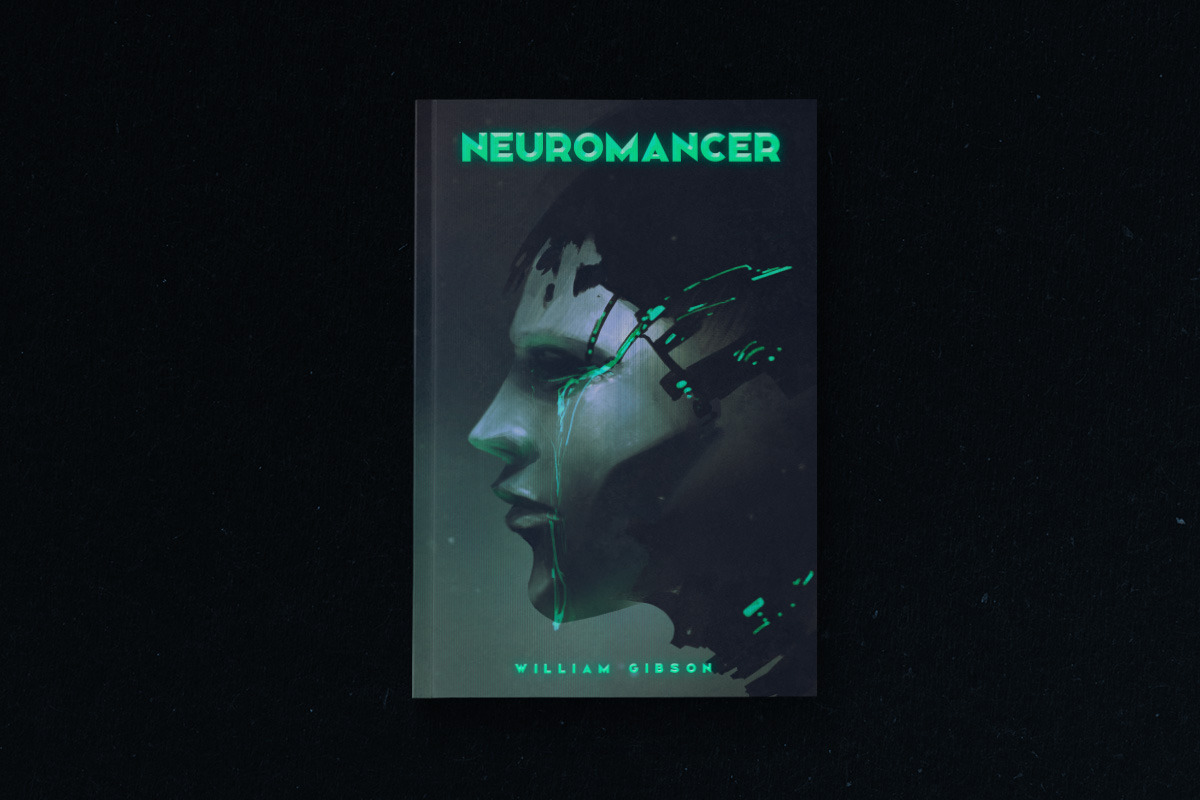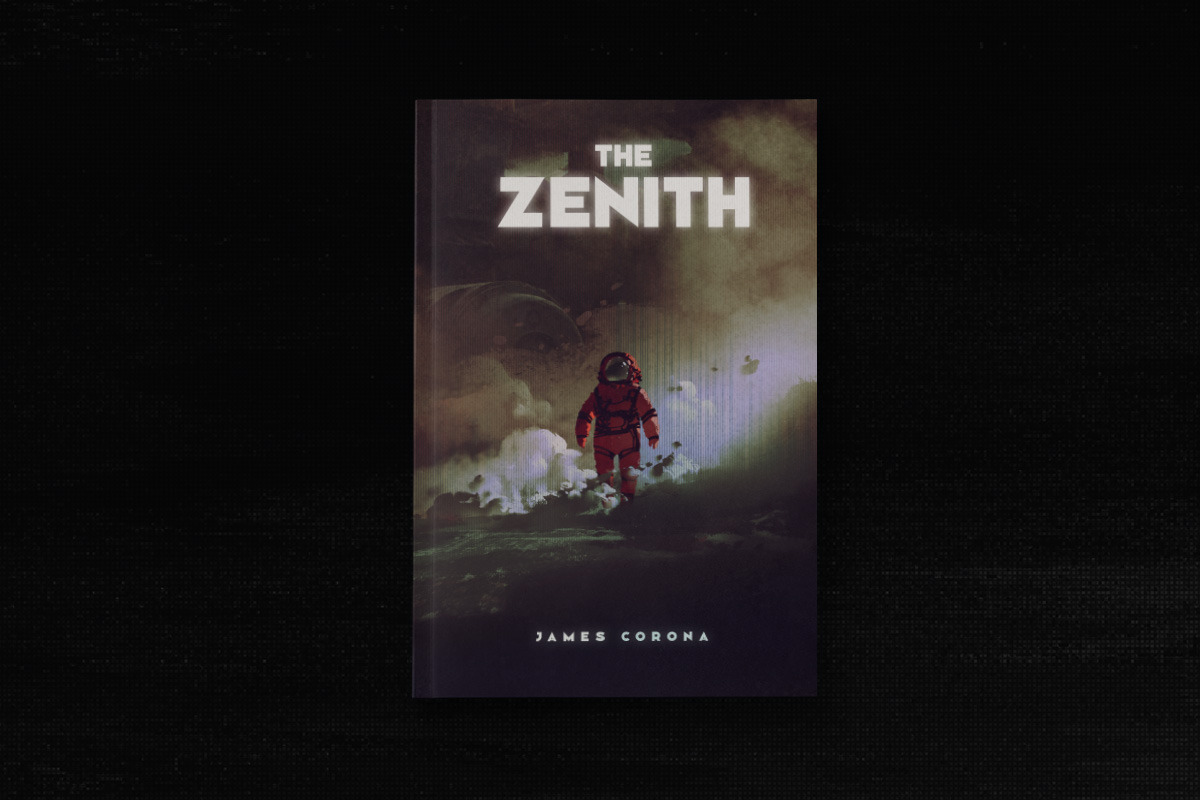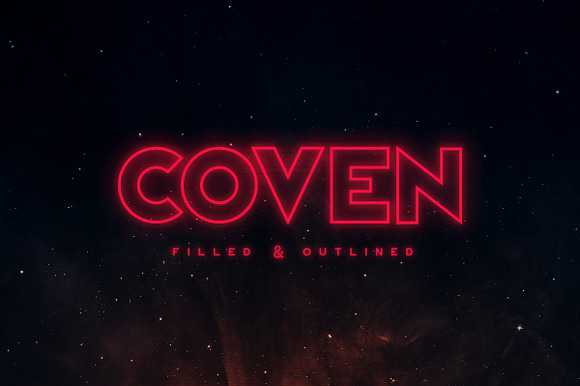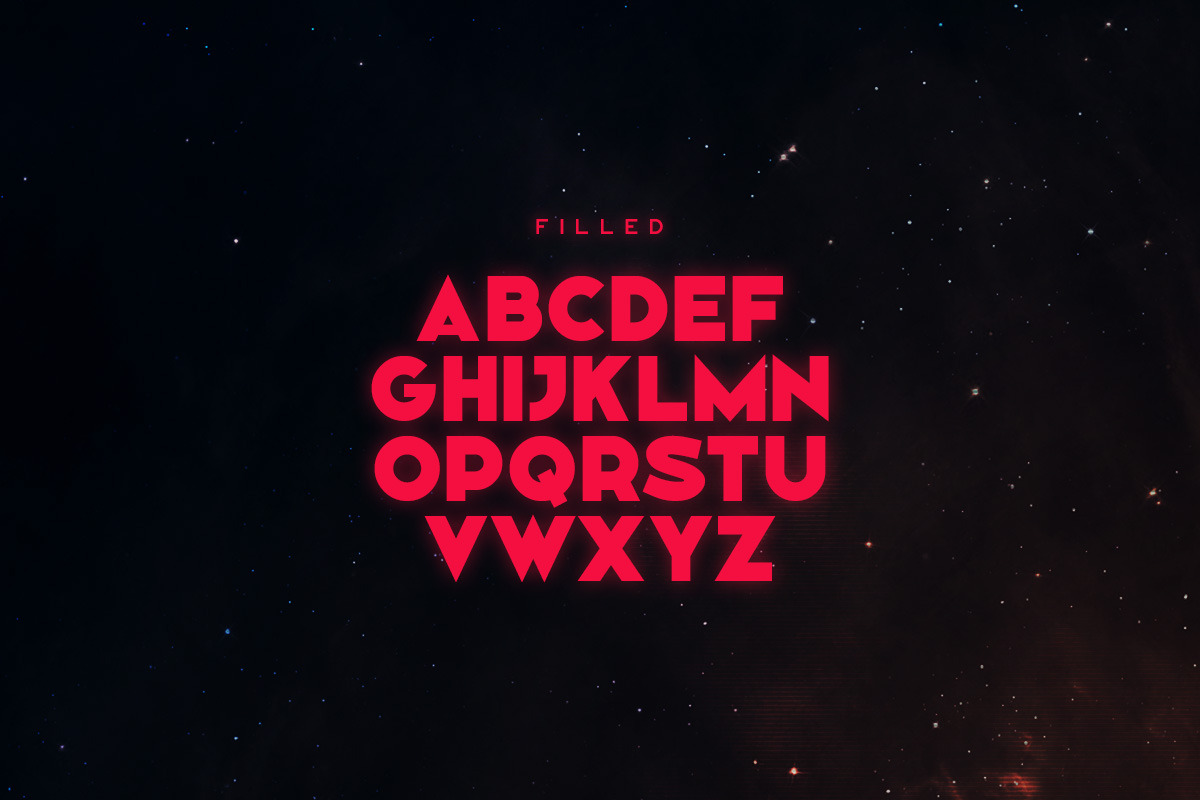
Coven Typeface
Coven is a bold & sharp display typeface. It comes in both filled & outline styles. Some letters of the outlined version such as A and E are slightly different to fit the outline format better.
The letter "S" also has an alternate version that can be toggled with caps lock. The font includes uppercase multilingual letters, numbers and punctuation.